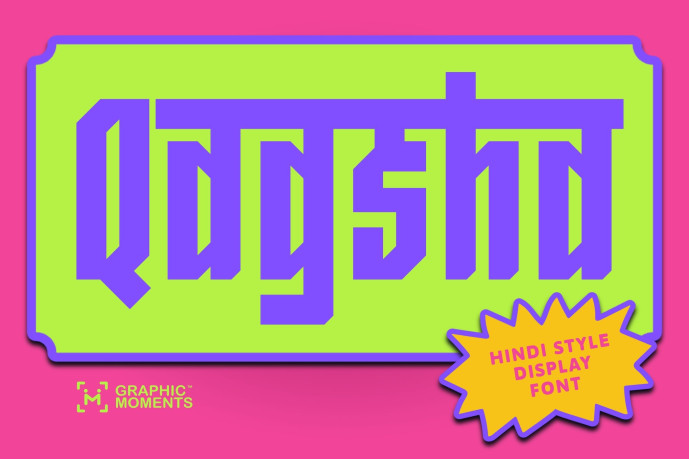
Qagsha – Hindi Font
Qagsha – Hindi Font is a striking Hindi-style display font that fuses traditional Indian design with a bold, contemporary edge. Inspired by the geometric beauty of Devanagari and Devnagri scripts, this typeface reimagines the essence of Hindi, Marathi, Gujarati, Malayalam, and Telugu lettering into a fresh, modern aesthetic. With its sharp forms and strong presence, Qagsha reflects the visual power of Bollywood posters and festive Indian signage, making it ideal for titles, logos, or creative branding that demands attention and cultural character.
Deeply rooted in Hindu and Sanskrit-inspired art, Qagsha captures the vibrant spirit of Indian festivals such as Diwali and Deepavali. Its festive design radiates energy, rhythm, and celebration—perfect for projects that highlight Indian tradition in a modern way. Whether used for packaging, event visuals, or cinematic typography, Qagsha brings together the soul of India’s heritage and the dynamism of today’s design trends.
Timeless Hindi essence, reimagined for today